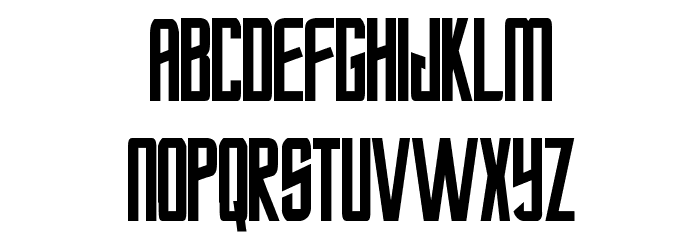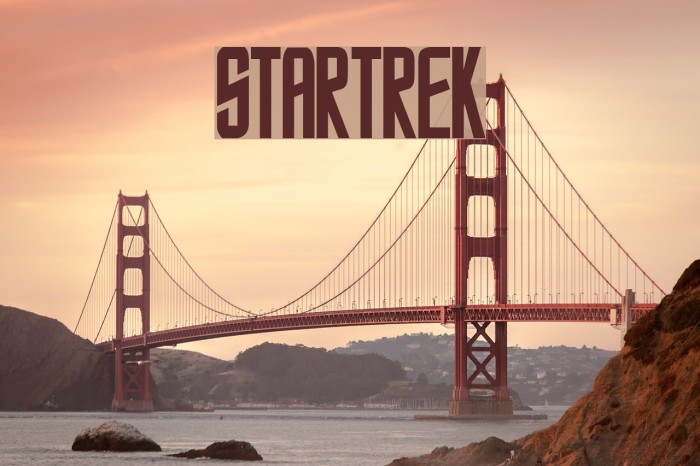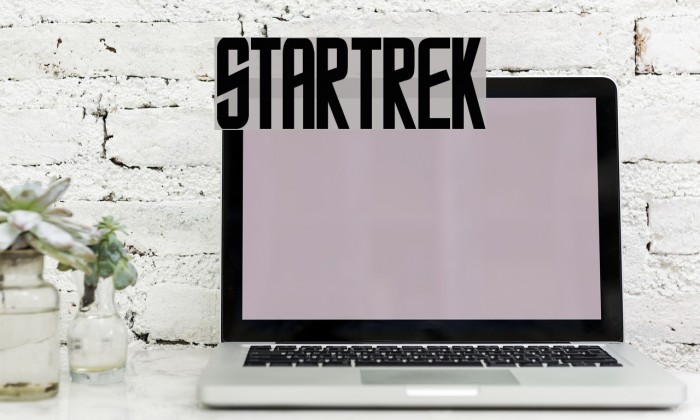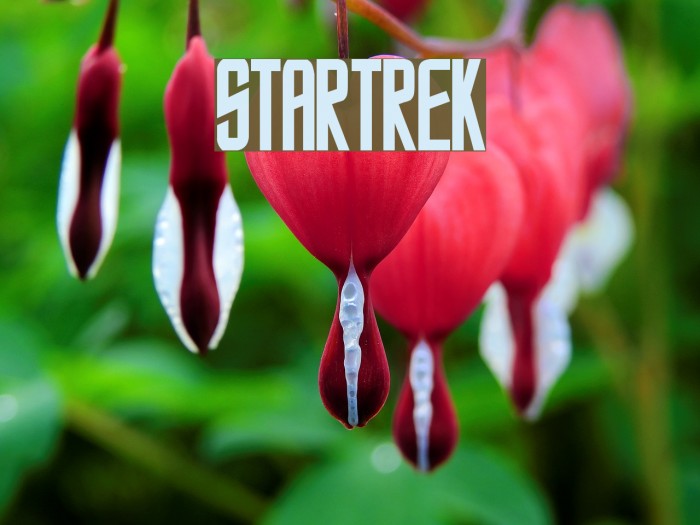
StarTrek Font
This font features a futuristic and angular design, characterized by its bold and geometric letterforms. The uppercase letters are tall and narrow, with sharp angles and a distinct sci-fi aesthetic. The numbers and special characters maintain this theme, offering a cohesive look across all glyphs. The font's unique style makes it stand out, with a design that feels both modern and retro-futuristic. Its clean lines and structured form give it a strong presence, ideal for projects that require a bold statement.
A futuristic, angular font with bold, geometric letterforms.
- Proposed Projects: Ideal for sci-fi themed projects, movie posters, video game titles, and branding that requires a modern, futuristic look.
- Overall Style: Futuristic